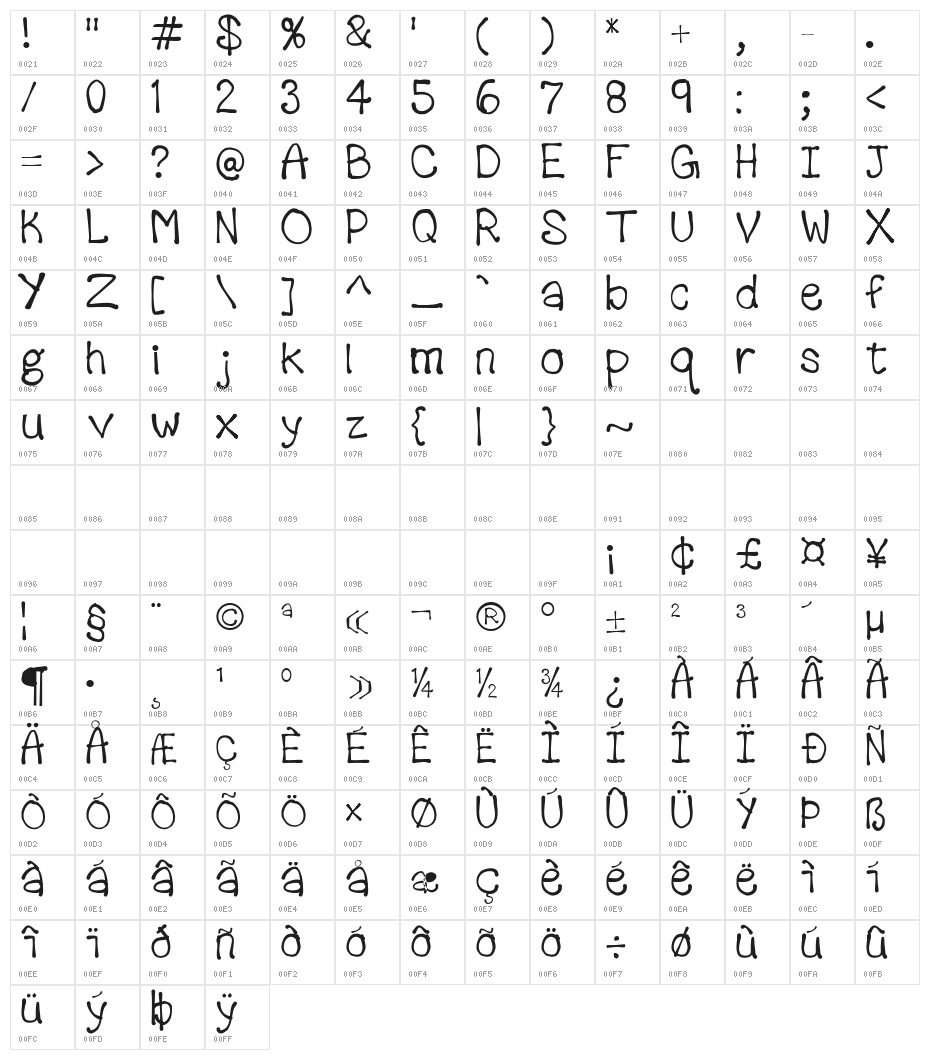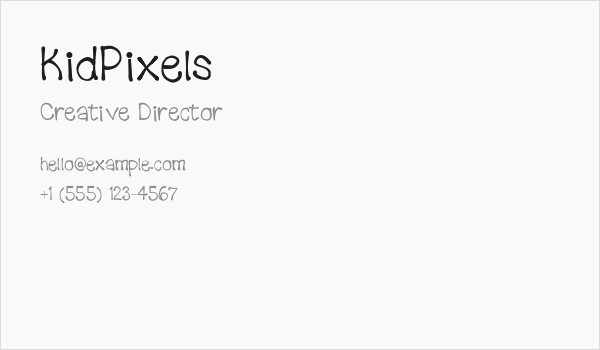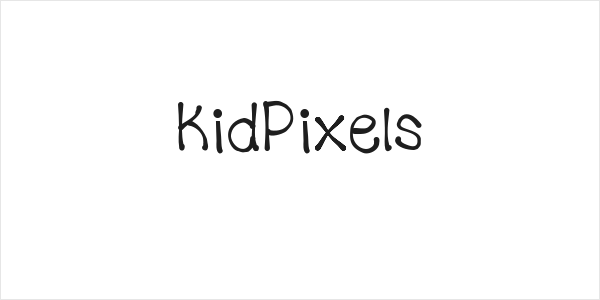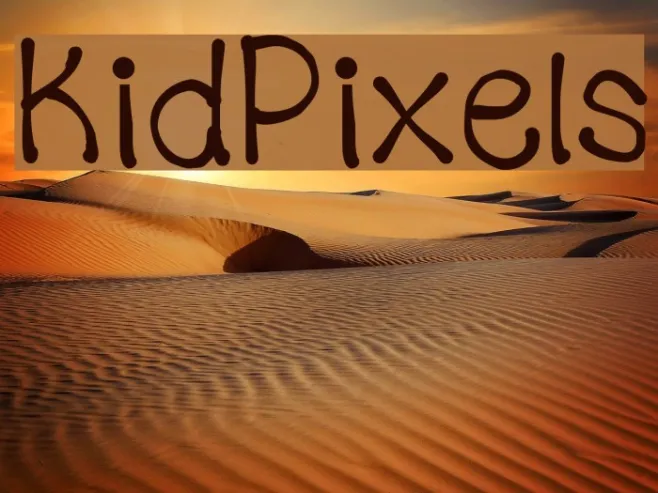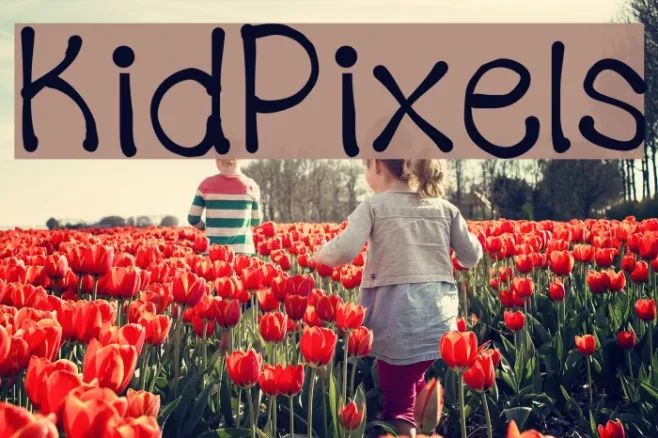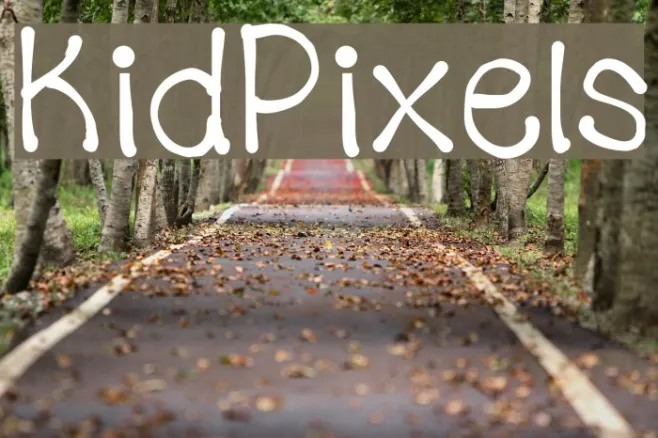
KidPixels Font
KidPixels Description
This playful and whimsical font features a hand-drawn style with irregular strokes and a casual appearance. The letters are slightly uneven, giving it a charming, childlike quality. The uppercase and lowercase characters maintain a consistent style, with rounded edges and a friendly demeanor. Numbers and special characters follow the same playful design, making this font suitable for creative and informal projects. Its unique style captures attention while remaining legible, making it ideal for designs that require a touch of fun and personality.
| Proposed Projects | Ideal for children's books, playful branding, casual invitations, and creative posters. |